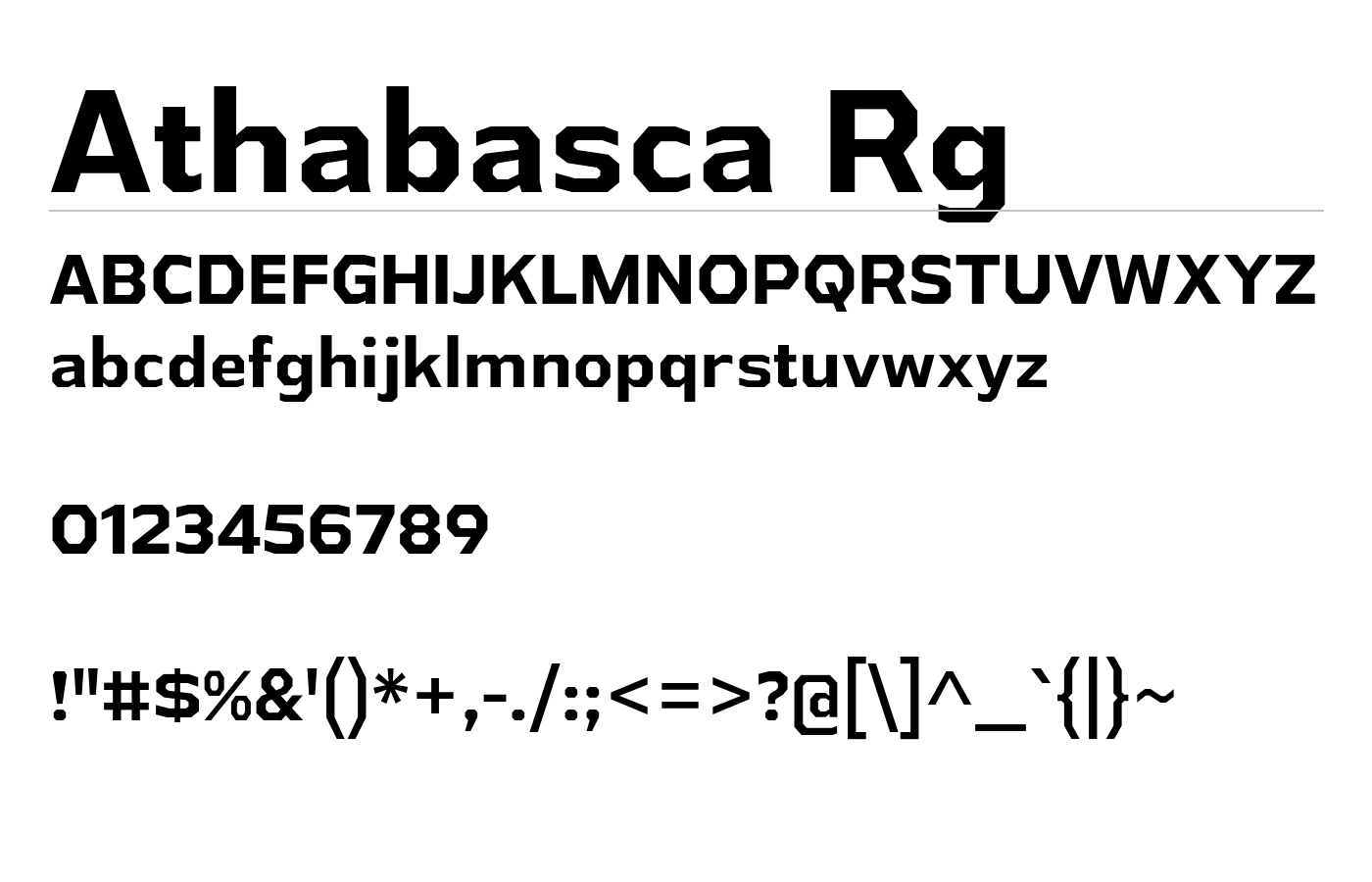
Athabasca is a bold, geometric sans serif font with a slightly condensed width and a strong, industrial feel. Its sharp, angular edges and uniform stroke weight give it a modern, technical appearance, making it ideal for headlines, posters, and branding that requires a confident, assertive style. This font works well in settings where clarity and impact are key, providing a distinctive, contemporary look.
Athabasca Font
About Athabasca Font
| Font family | Athabasca Font |
| Designer | Raymond Larabie |